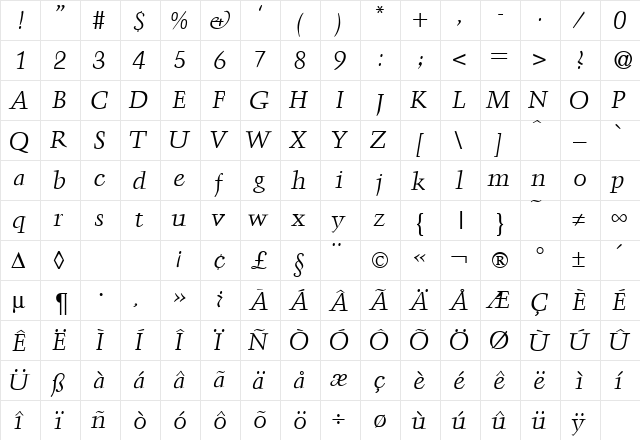
Troubadour RegularItalic
Design Context for Troubadour Typeface
Troubadour takes a measured approach to typography — its balanced proportions and neutral character make it a reliable workhorse for both digital and print work. Its italic angle brings a sense of urgency and motion to the letterforms.
Pro Tip: Try Troubadour for annotation and caption copy alongside an upright companion — the contrast in angle creates a dynamic but ordered typographic system.